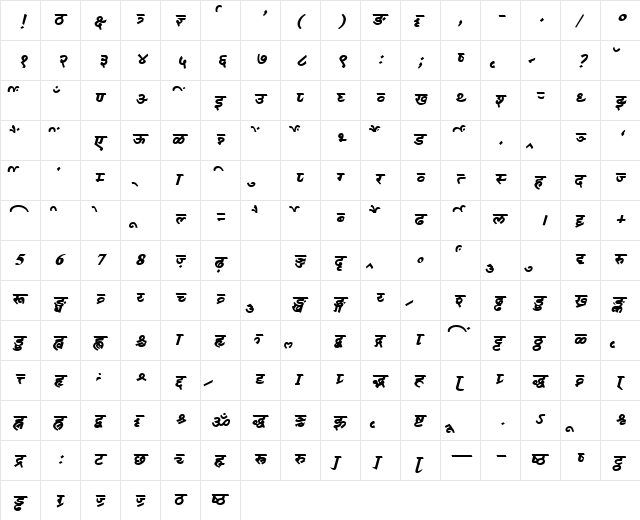
AkrutiDevBharani BoldItalic
Design Context for AkrutiDevBharani Typeface
AkrutiDevBharani offers clean, dependable letterforms without strong stylistic allegiance, making it a practical choice for designers who need flexibility. The slanted form adds forward momentum and visual energy. Its bold stroke weight gives it real presence on the page.
Pro Tip: Try AkrutiDevBharani for annotation and caption copy alongside an upright companion — the contrast in angle creates a dynamic but ordered typographic system.